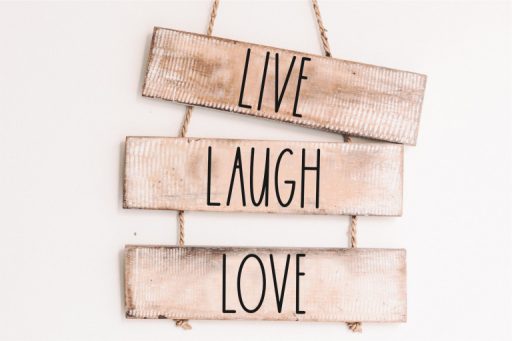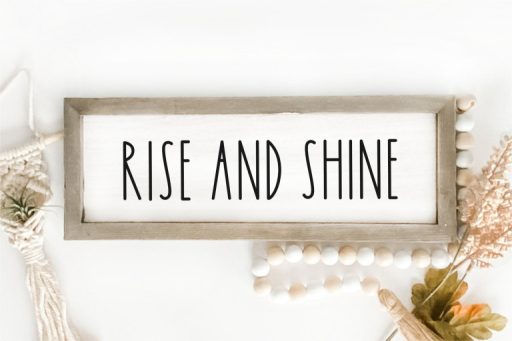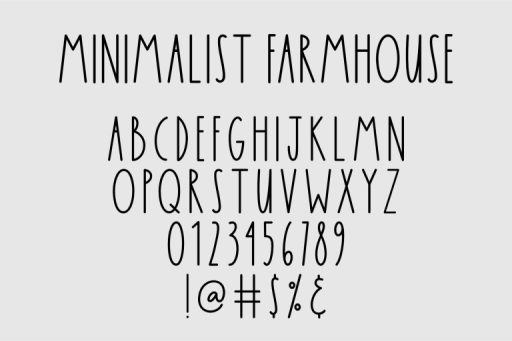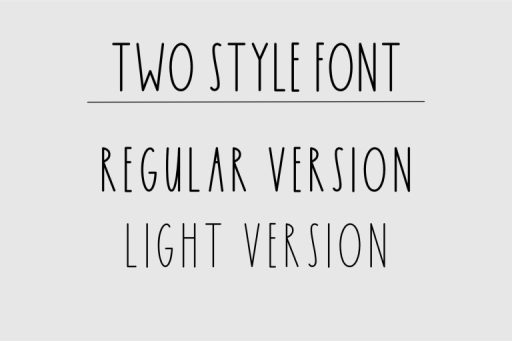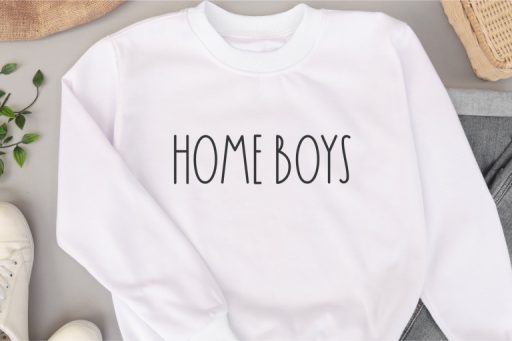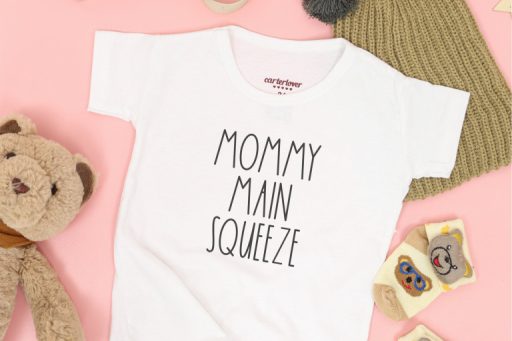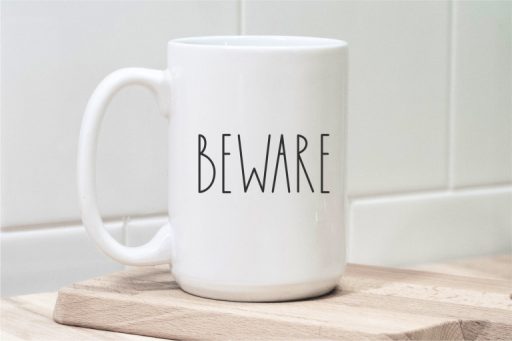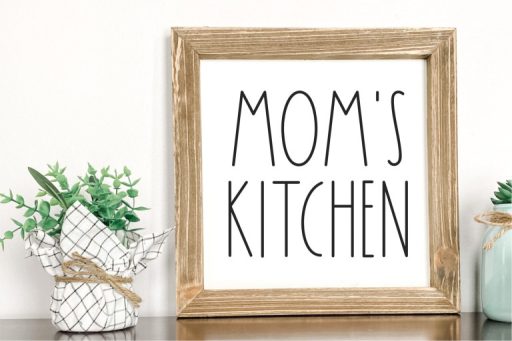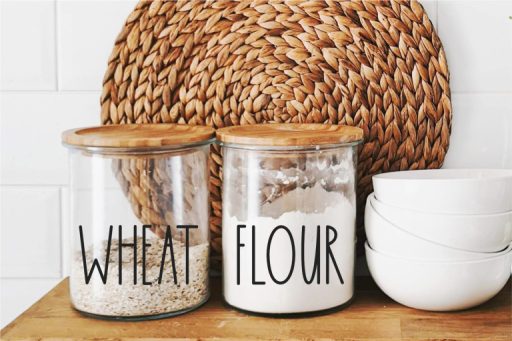
Minimalist Farmhouse - Tall and Skinny Font Jimtype Studio
Minimalist Farmhouse - Light
Minimalist Farmhouse - Regular
Minimalist Farmhouse – Farmhouse Font from Jimtype Studio
Introducing ‘Minimalist Farmhouse‘ Font – a tribute to the timeless elegance and simplicity of farmhouse style. This versatile farmhouse font is designed for Cricut enthusiasts and sign makers looking to infuse their projects with rustic charm. With its clean and minimalist appeal, ‘Minimalist Farmhouse‘ Font is the perfect choice for creating captivating signage and decor. Explore our font collection now and bring the essence of farmhouse living to your designs.